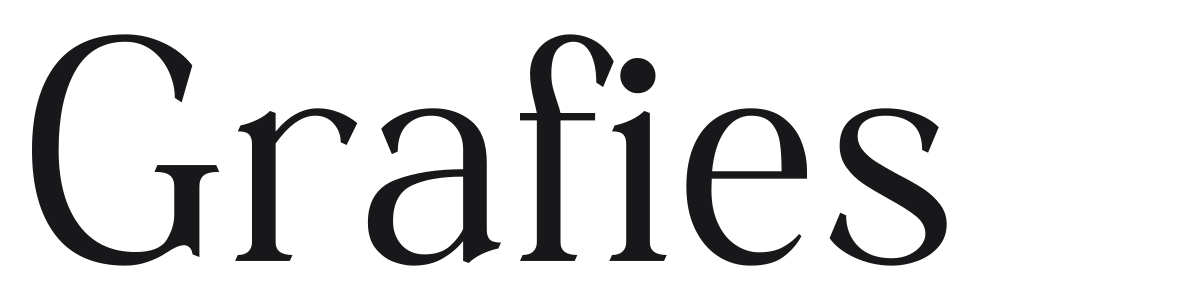
Grafies
Grafies is a high-contrast modern serif with the hallmarks of Didone tradition: razor-thin hairlines, strong thick stems, and delicate bracketed serifs. The generous proportions and smooth curves give it a contemporary editorial feel rather than a strictly historical one. It carries the kind of quiet confidence that works in fashion branding, masthead design, and luxury packaging.